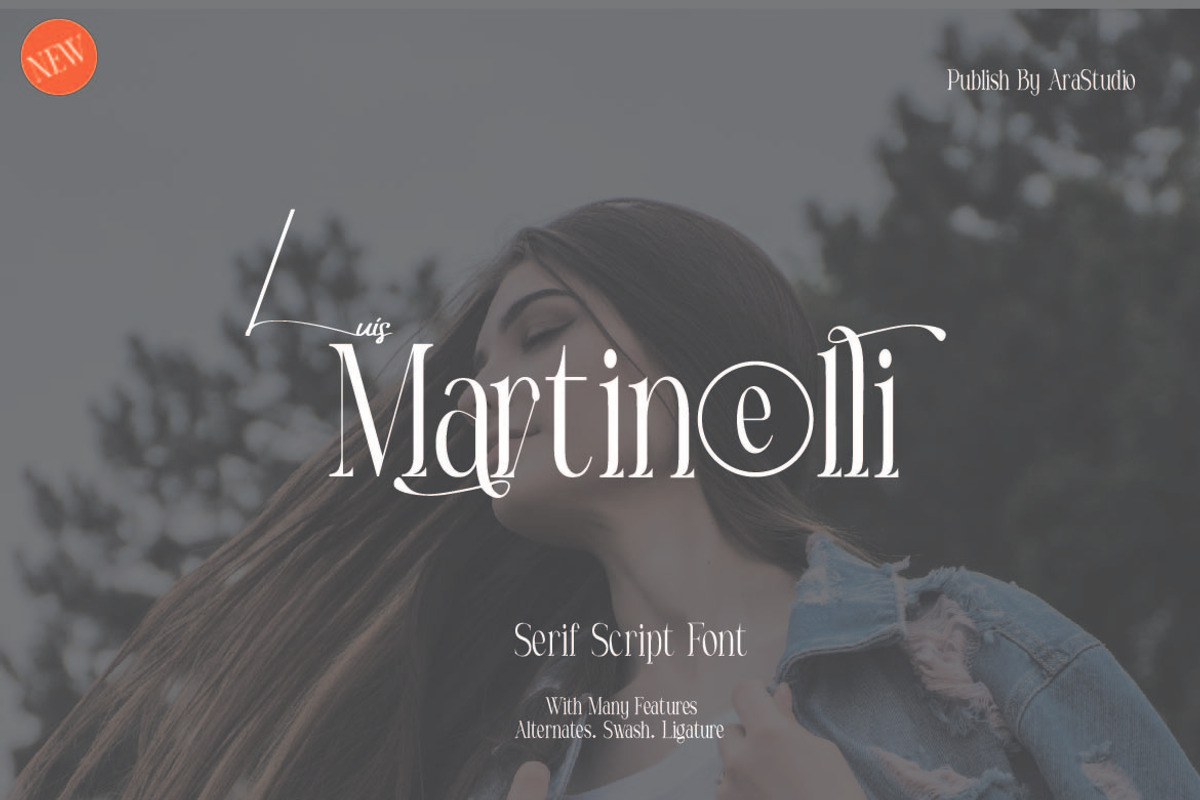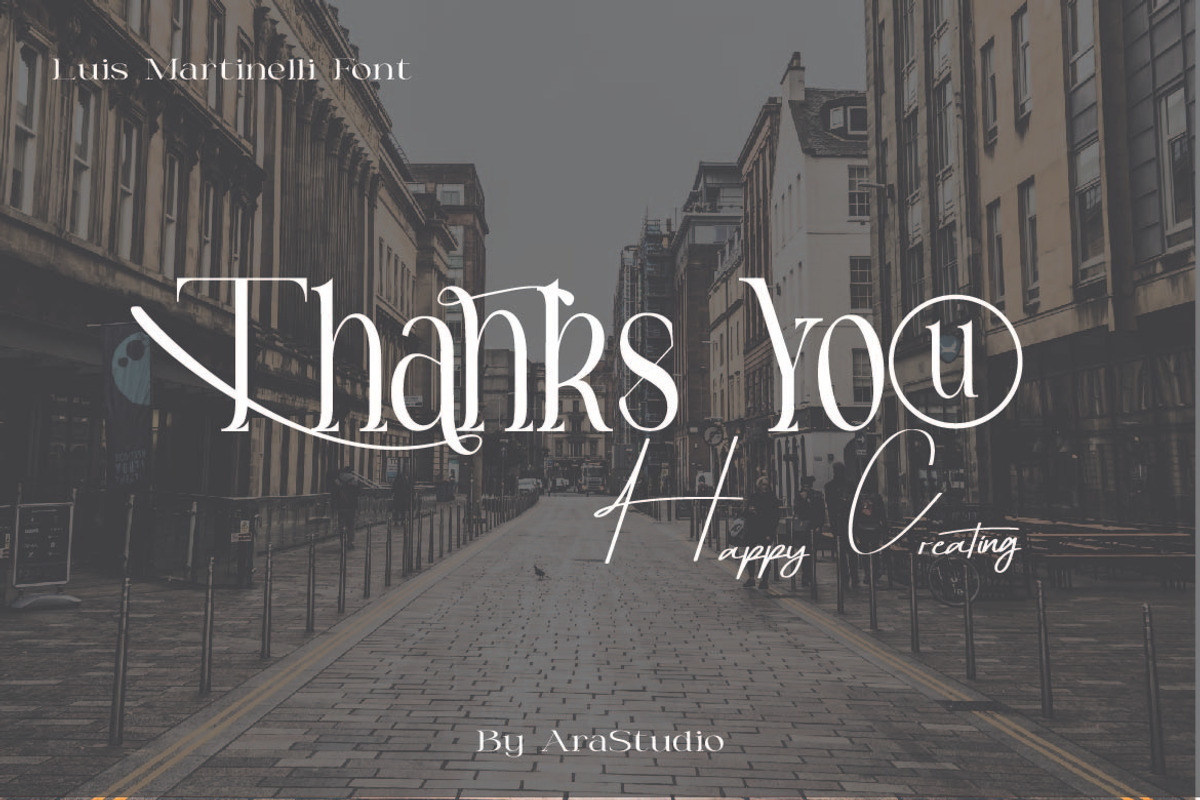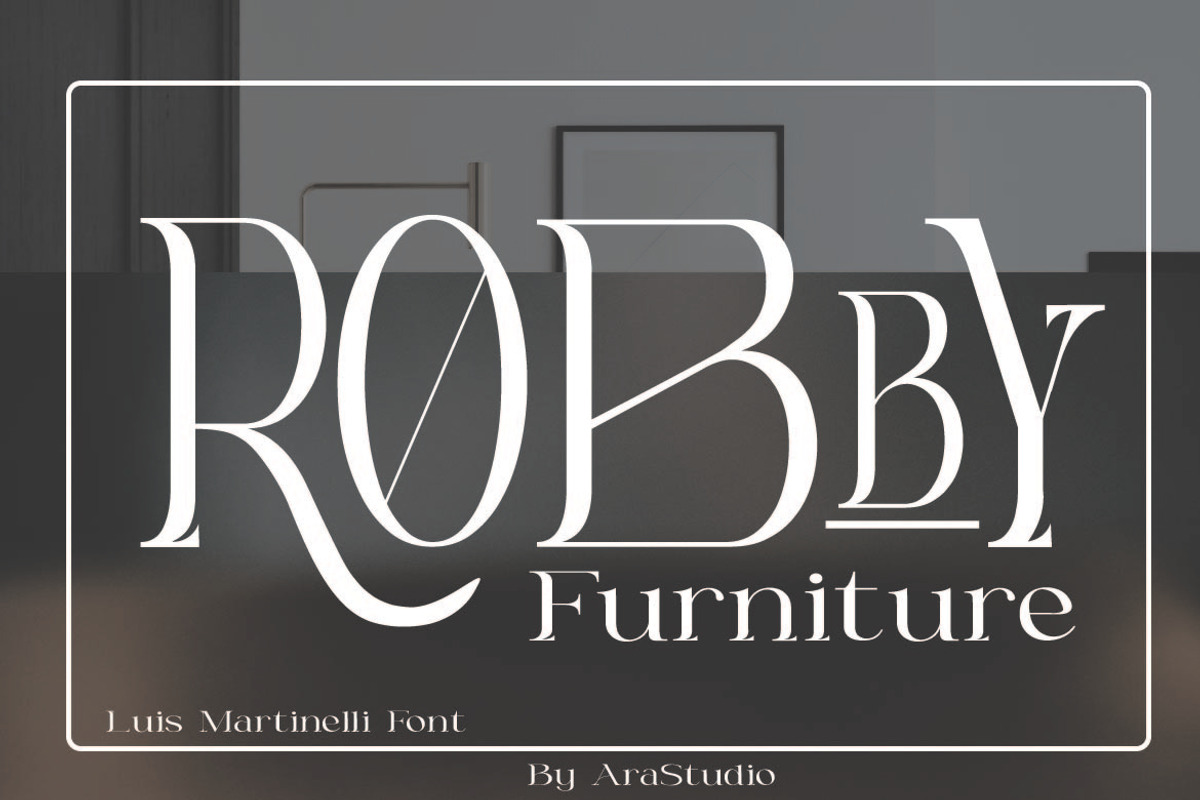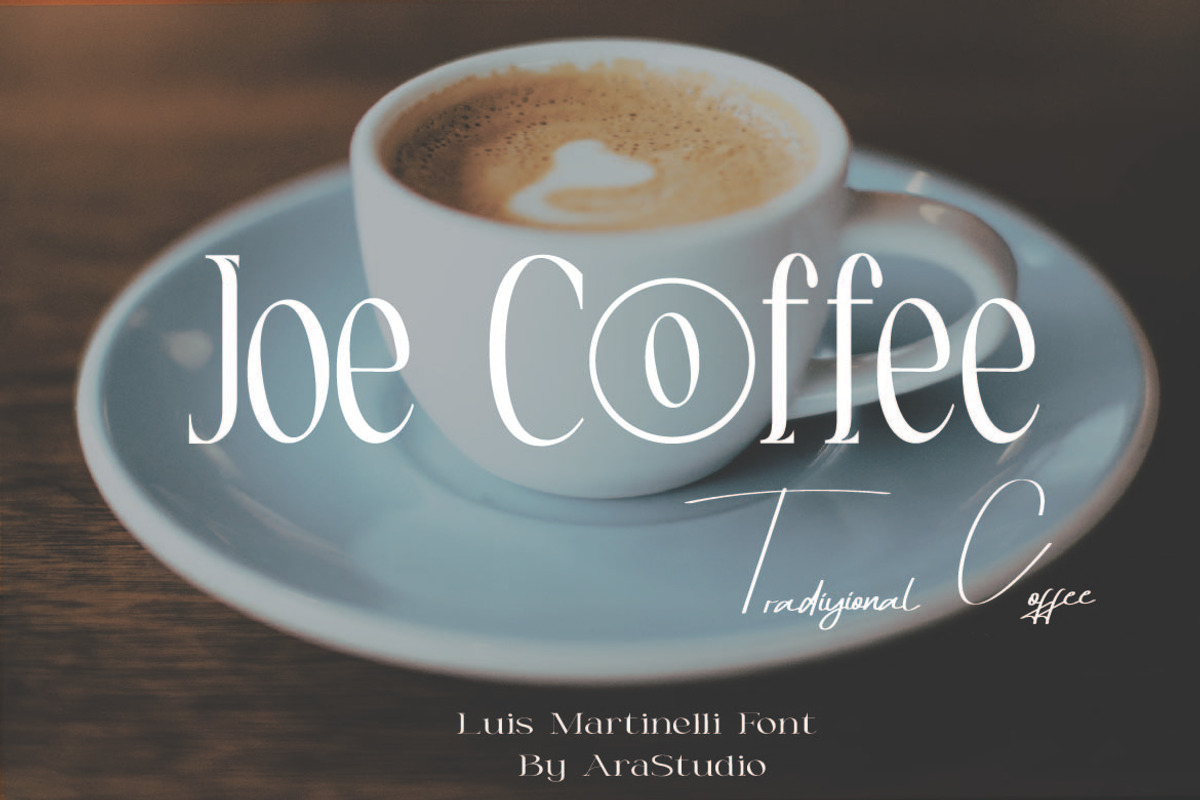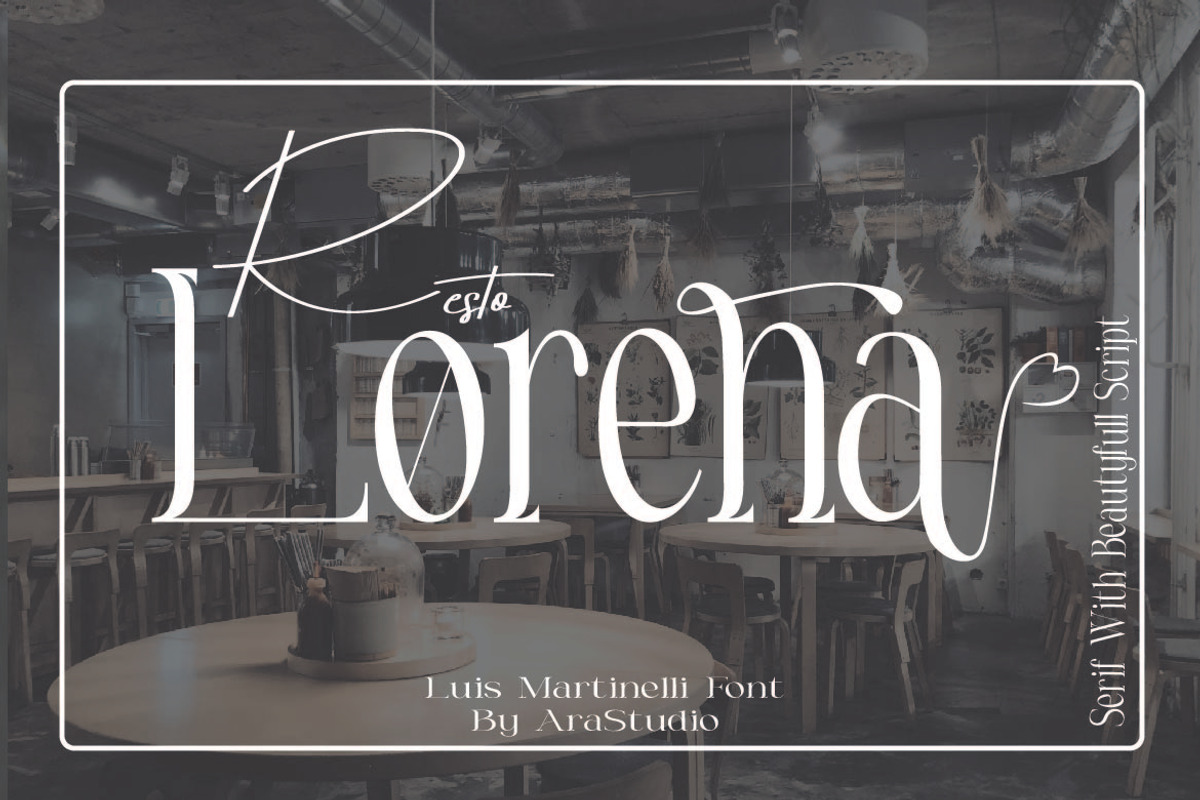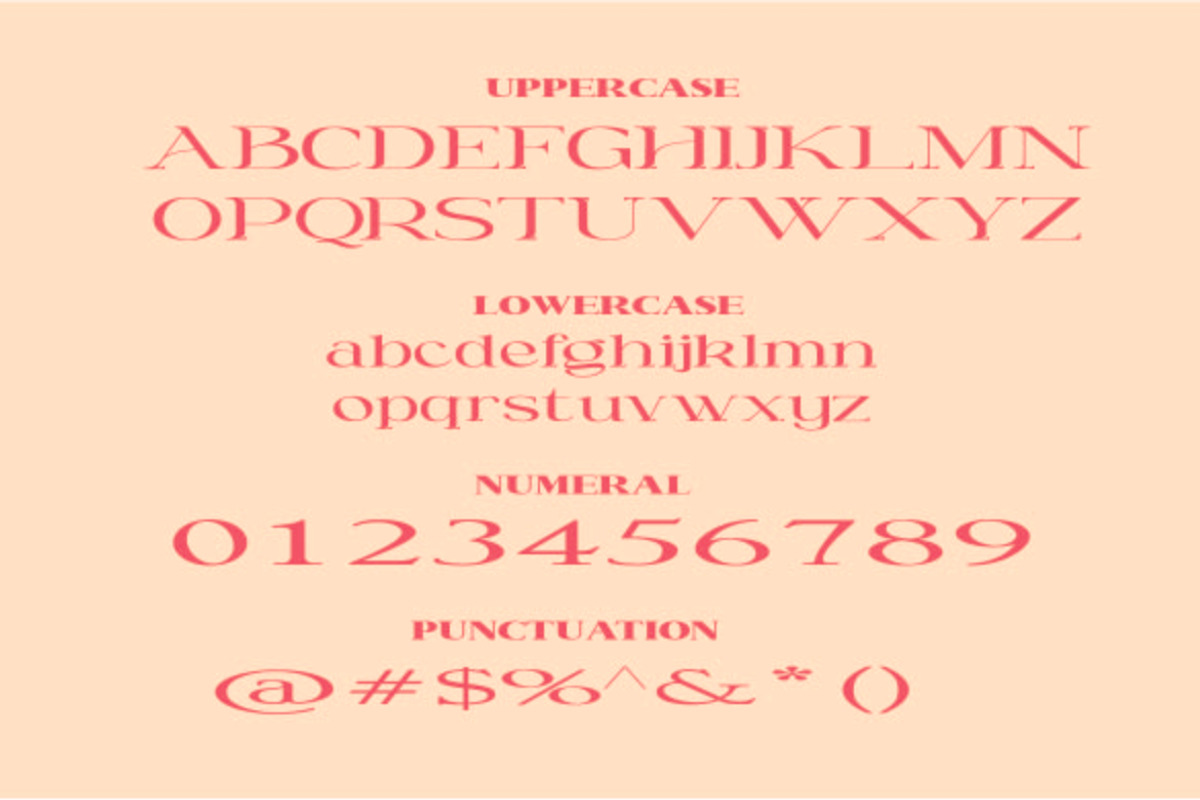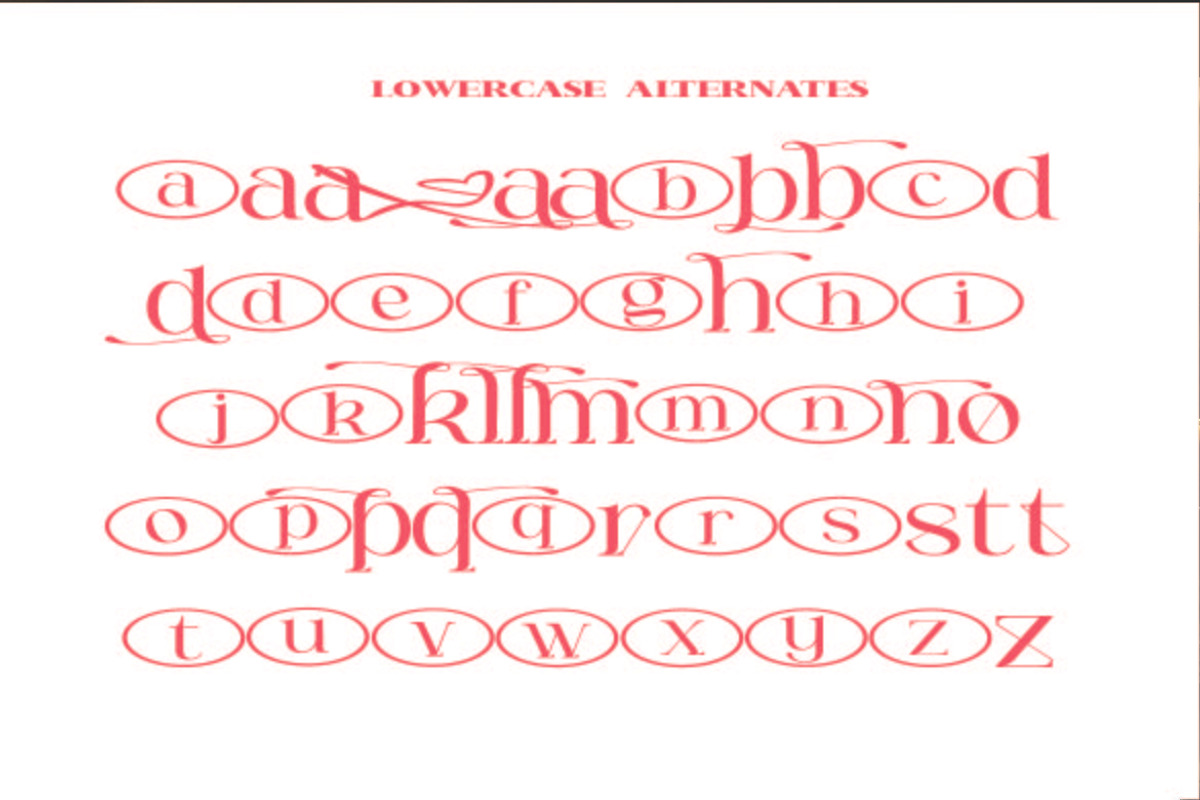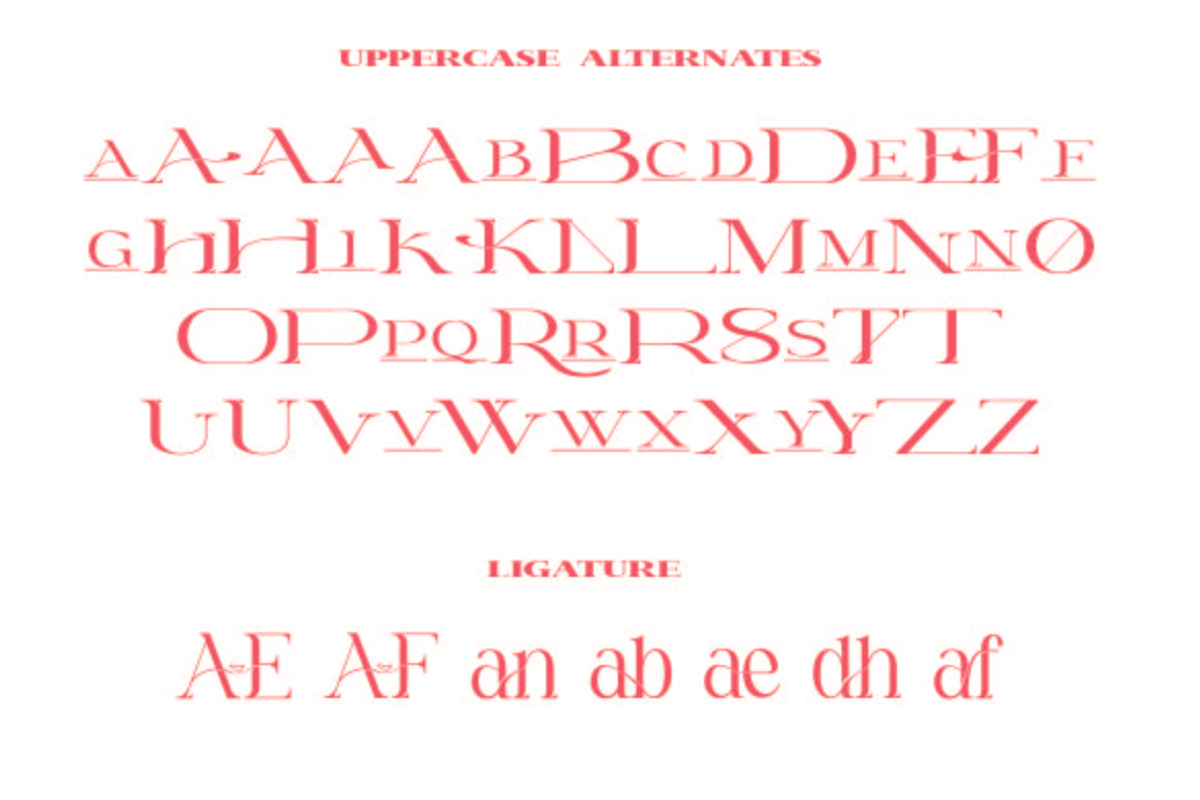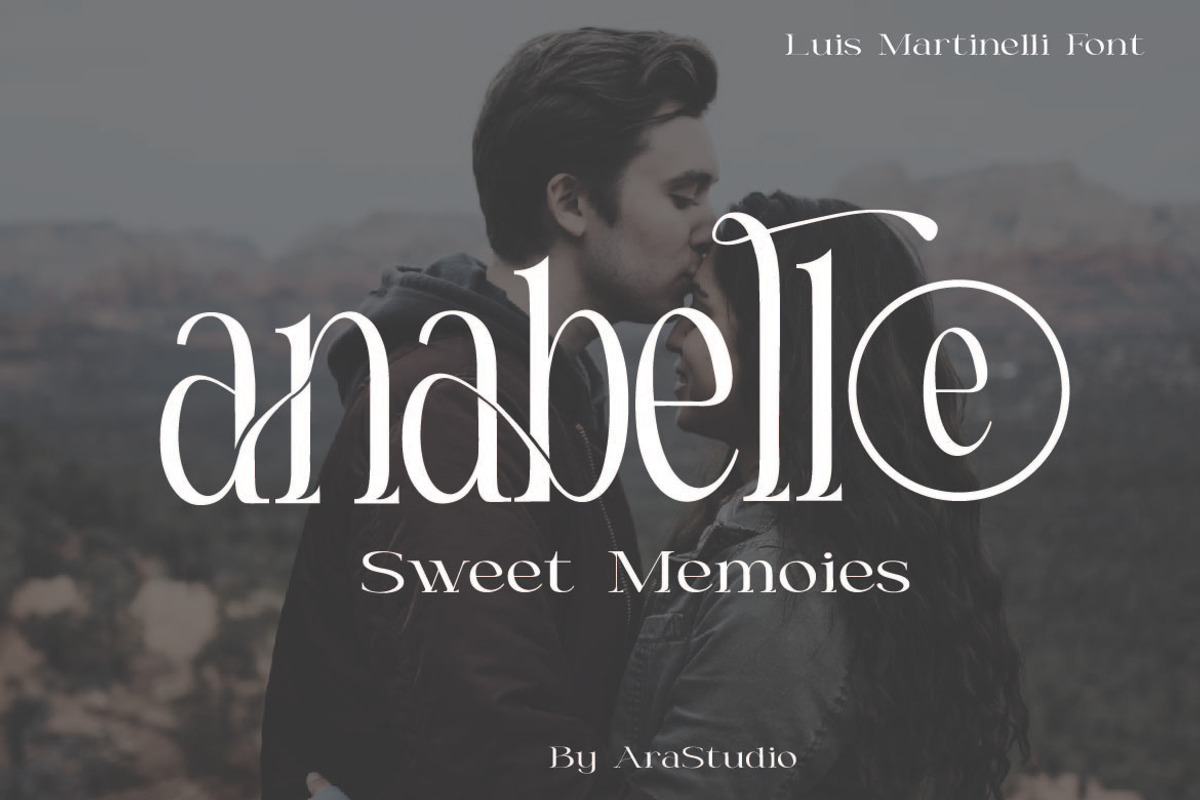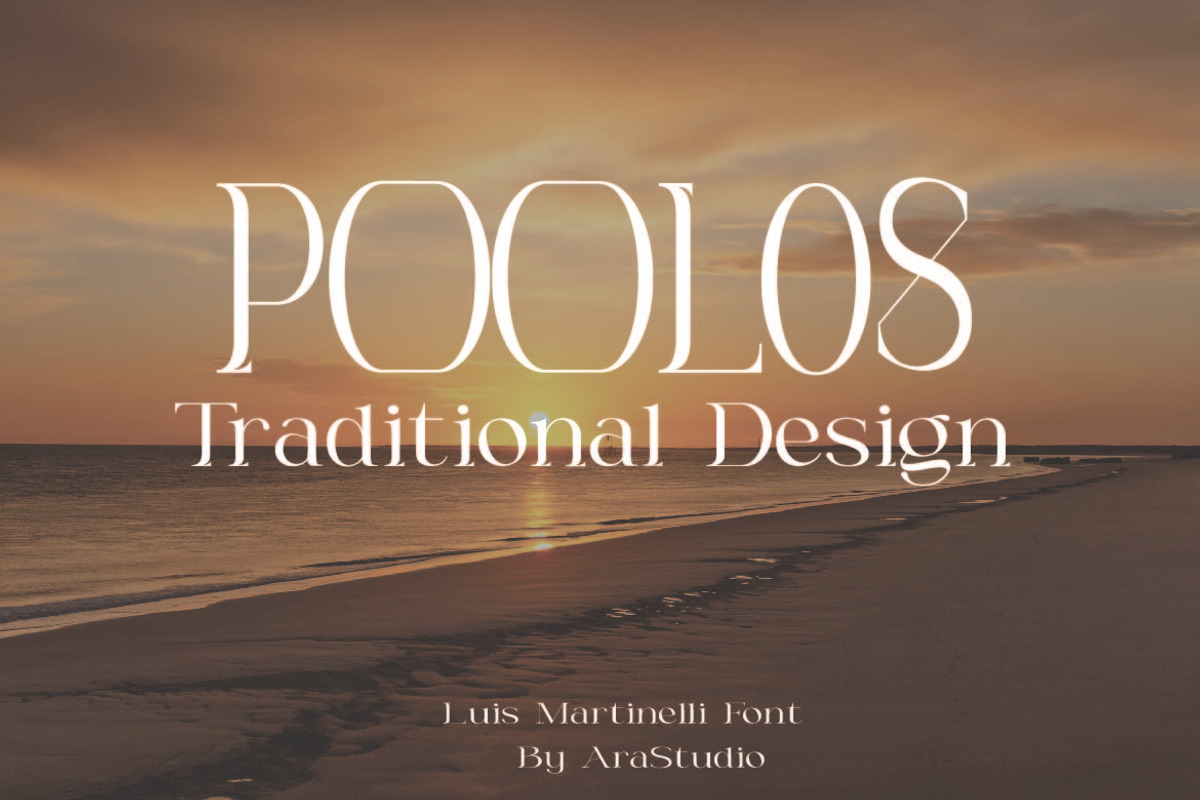
Luis Martinelli - Two Fonts Beauty
Luis Martinelli Serif and Script Font is Beautyful Serif and Script modern font combined with a sweet touch and beautifully curved each letter. Equipped with stunning character alternatives to make your design more strikin. using a touch of soft curves so that it is pleasing to the eye.
Luis Martinelli Font is great for: Wedding invitations, fashion, magazines, logos, signatures, and suitable for watermark. photography, branding, merchandise and so on. Type and type now to pour your creative ideas....